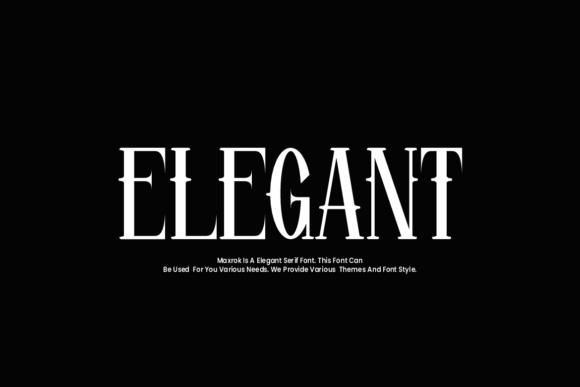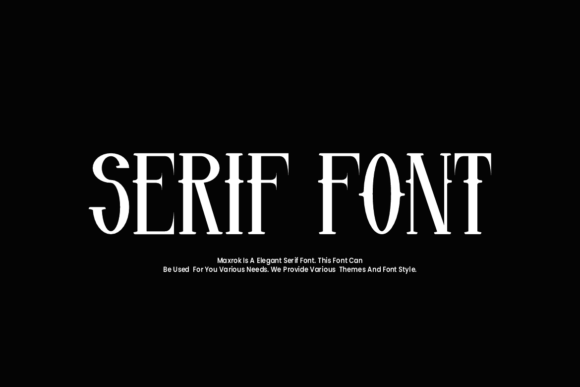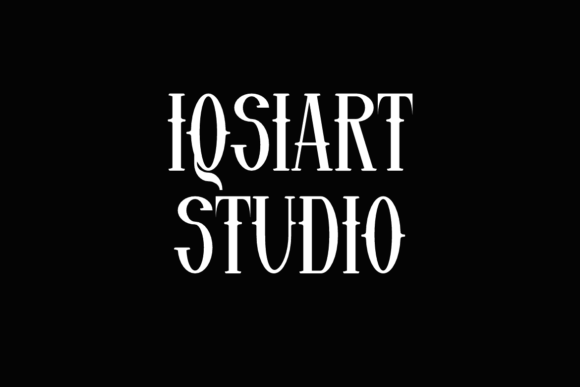
Introduction to Maxrok Font
Imagine you’re a designer, staring at a blank canvas, ready to bring your creative vision to life. You’ve got a clear concept in mind, but the right typography is missing – the spark that sets the whole project ablaze. This is where the Maxrok Font comes in, a game-changing luxury serif display typeface that’s about to elevate your design to new heights.
As a valuable resource for designers, Maxrok Font offers a unique blend of elegance and bold expressiveness. Its sophisticated letterforms, dramatic high-contrast strokes, and ornate flourishes on the serifs make it the perfect choice for high-end branding, fashion editorials, luxury packaging, and statement headlines.
With its PUA-encoded design, you’ll have effortless access to all glyphs, swashes, and alternate characters, allowing you to customize your creations with ease. Whether you’re working on a modern or classic theme, Maxrok Font’s versatility and high quality make it an indispensable asset for any creative project.
Key Features of Maxrok Font
- High-quality design resource ideal for creative projects requiring unique typography.
- Features a clean and modern design with a wide range of glyphs, making it suitable for various applications.
Honest Review: Maxrok Font
I recently had the chance to work with the Maxrok Font, and I must say it’s a great addition to any designer’s toolkit. As a design resource, it offers a wide range of styles and weights that can easily elevate a creative project.
One of the standout features of the Maxrok Font is its transparency. It features a transparent background, which makes it incredibly versatile and easy to work with. I used it for a recent branding project, and it really helped to bring the design together.
Here are some of the things that work well with the Maxrok Font:
- High-quality design: The font is incredibly crisp and clear, making it perfect for both digital and print projects.
- Customizable: The font offers a wide range of styles and weights, making it easy to customize to fit your specific design needs.
While the Maxrok Font is a great choice, there are a few limitations to be aware of: ⚠️
- Limited character set: The font is missing some common characters, which can be a bit of a pain to work with.
Overall, I’m really impressed with the Maxrok Font. It’s a great choice for designers who are looking for a high-quality, free design resource. With a little bit of creativity and customization, it can really help to take your design projects to the next level. ✨
Maxrok Font
Tips for Getting the Most Out of Maxrok Font
Maxrok Font has a transparent background, making it perfect for creating high-quality designs. Use it to add a touch of elegance to your creative projects.
For the best results, pair Maxrok Font with a high-quality image or background.
Common Use Cases for Maxrok Font
Maxrok Font is ideal for various design projects, including:
1. Logo design
2. Business cards